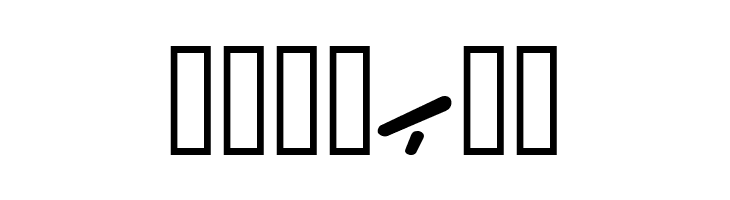
Absinth Flourishes I Font
Ornamental dingbat font with flourishes and decorative motifs.
Anonymous Pro Font
A clean, modern monospaced typeface ideal for coding and technical use.
Anonymous Pro Bold Font
A bold, monospaced font with a clean and modern design, ideal for technical applications.
Anonymous Pro Bold Italic Font
A bold, italicized monospaced font with a modern and professional look.
Anonymous Pro Italic Font
A modern, italic font with clean lines and consistent stroke width.
AnonymousRegular Font
A clean, modern monospaced font with consistent stroke weight and uniform character spacing.
Beautiful ES Font
An elegant script font with flowing, cursive strokes and high contrast.
EosE Font
A bold, playful font with rounded edges and a modern twist.
EosK Font
A bold, playful, and modern decorative font with rounded characters.
FancyFace Font
A whimsical and playful font with decorative elements and medium contrast.
KokeccoKT Font
A playful, rounded font with bold strokes and a hand-drawn feel.
Korohanza Font
A decorative and abstract font with intricate, artistic characters.
SixtySeven Font
A playful, casual font with rounded, slightly slanted letterforms.
Stone Age Font
A rugged, textured font with a primitive, stone-carved appearance.
Weehah Font
A whimsical and playful font with tall, narrow letters and decorative curves.